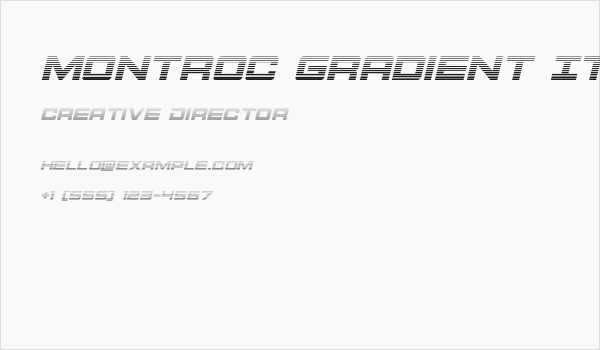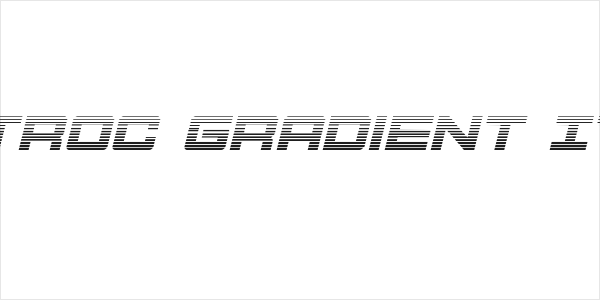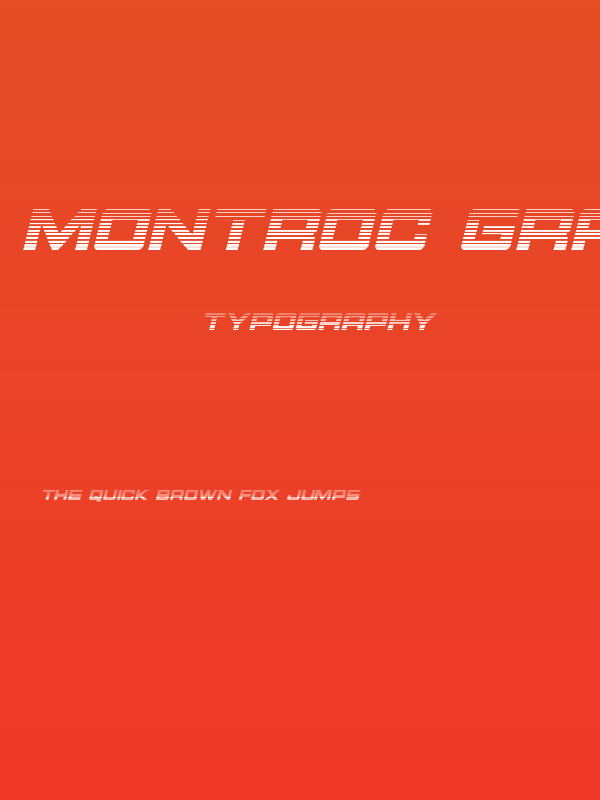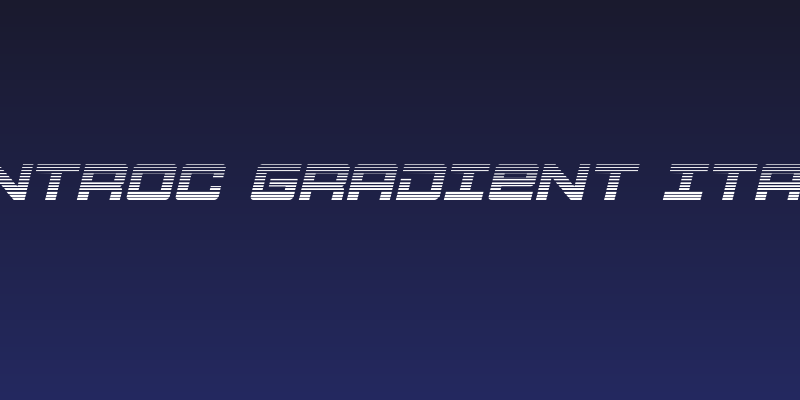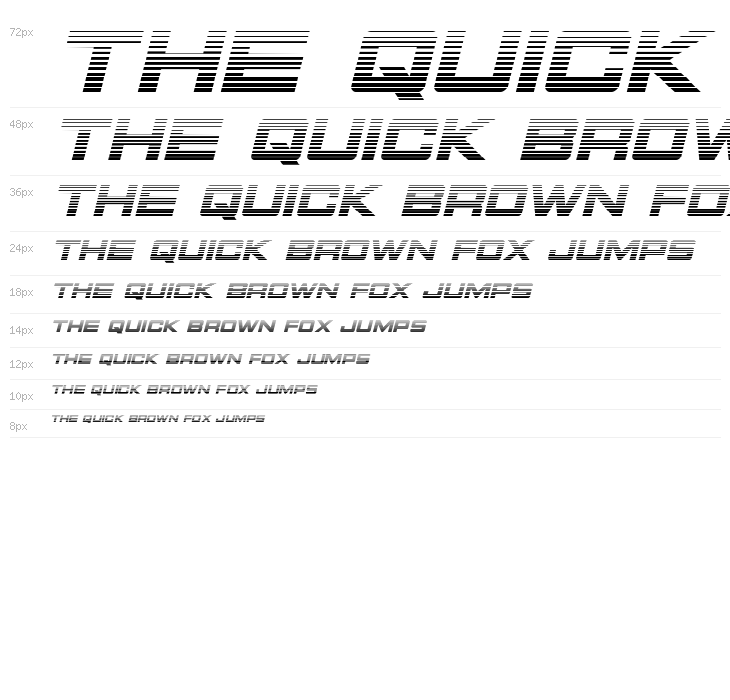
Montroc Gradient Italic Font
This font features a unique gradient effect within each character, creating a dynamic and futuristic appearance. The italicized style adds a sense of motion and energy, making it ideal for modern and tech-oriented designs. The characters are constructed with horizontal lines that vary in thickness, giving a sense of depth and dimension. This font is highly stylized and would stand out in any digital or print medium, offering a bold statement with its distinctive look.
Overall StyleFuturistic
Use CaseHeadlines, Logos, Digital media
Proposed ProjectsIdeal for tech branding, futuristic posters, video game titles, and digital media.